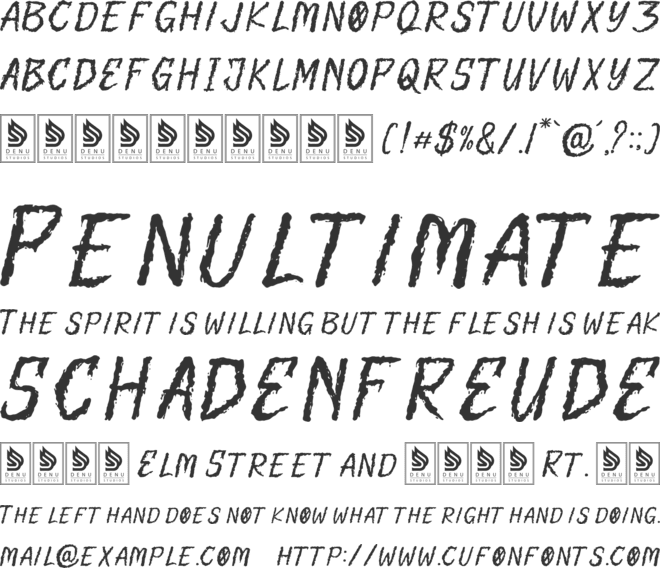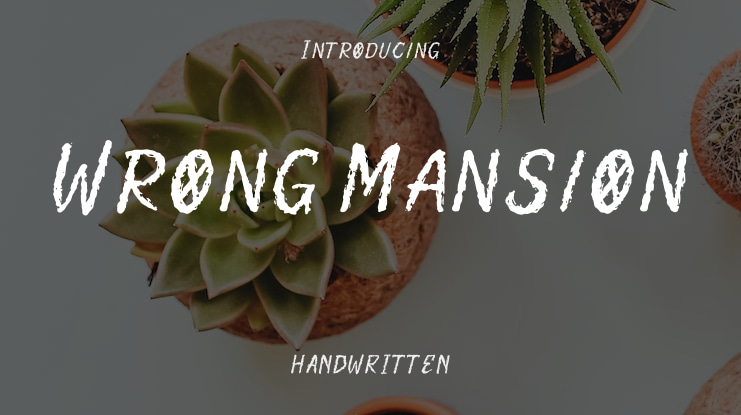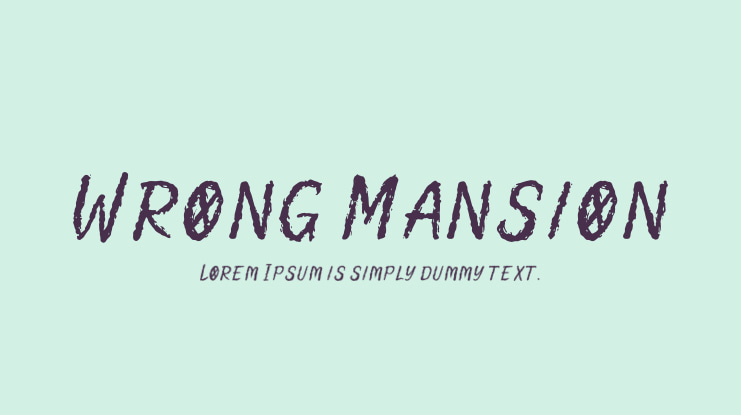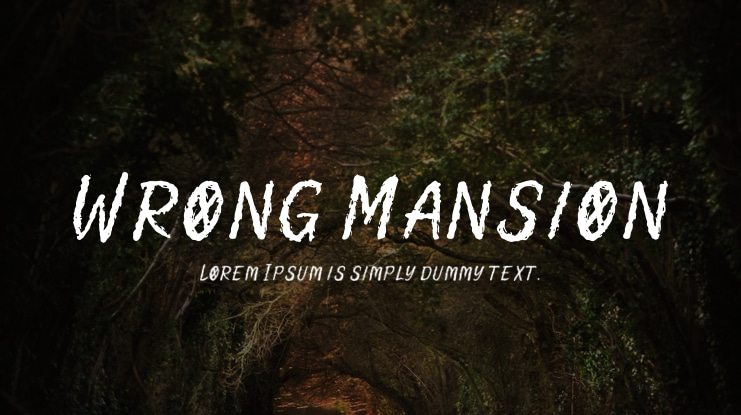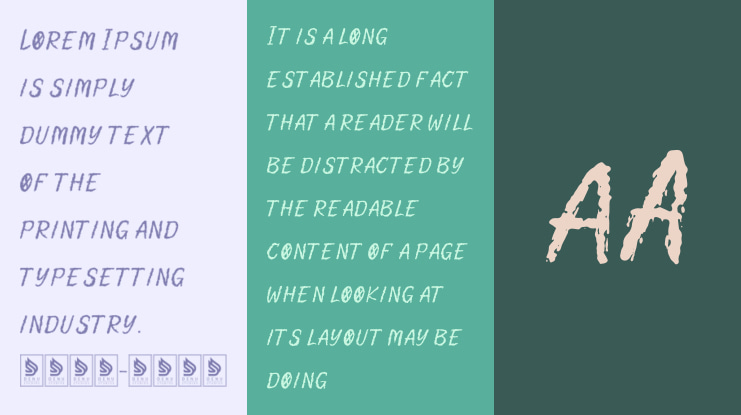
Wrong Mansion Font
Wrong Mansion | Horror Font is suitable for various projects such as logos, branding projects, homeware designs, product packaging, mugs, quotes, posters, shopping bags, t-shirts, book covers, name cards, invitation cards, greeting cards, labels, photography, watermarks, special events, and all your other lovely projects that require a Horror Font touch.